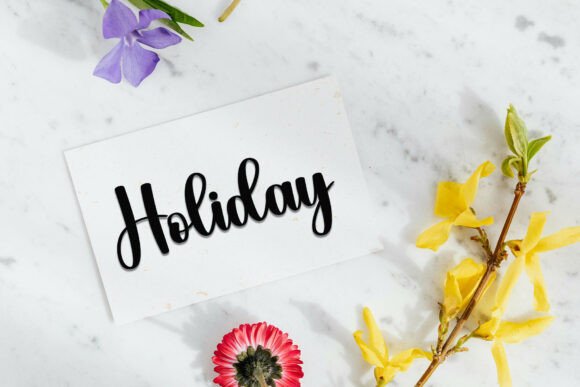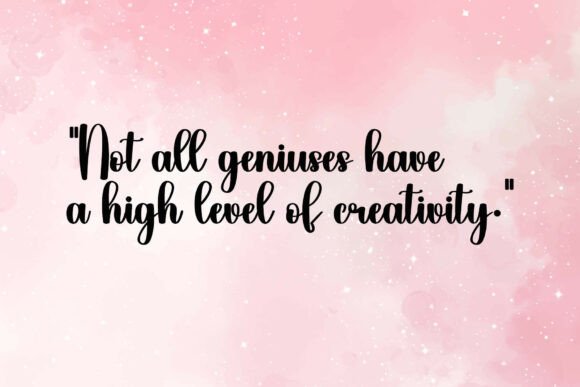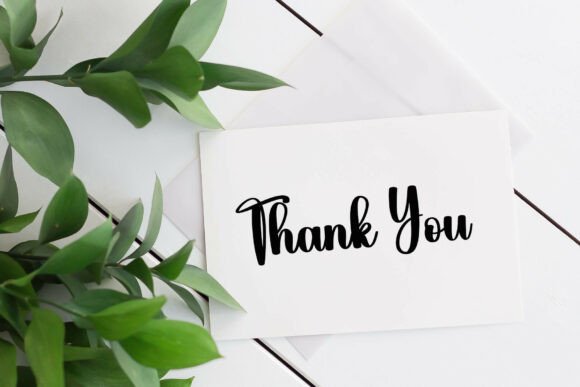
Coffee Font: Elevate Your Designs with a Touch of Elegance
In the world of typography, fonts play a crucial role in conveying the tone and personality of a design. For designers and crafters looking to add a touch of sophistication and elegance to their projects, the Coffee Font is an excellent choice. This trendy handwritten font boasts a contemporary atmosphere and impeccable form, inspired by timeless classic calligraphy.
The Inspiration Behind Coffee Font
Coffee Font draws its inspiration from traditional calligraphy, bringing a sense of nostalgia and classic charm to modern designs. The font’s creator aimed to capture the essence of elegant handwriting, perfecting the curves, lines, and strokes to create a truly unique and versatile typeface. The result is a font that exudes refinement and poise, making it suitable for a wide range of design applications.
Key Features of Coffee Font
- Trendy and Contemporary: Despite its classic inspiration, Coffee Font has a distinctly modern feel, making it perfect for designers looking to create fresh and stylish content.
- Handwritten Elegance: The font’s handwritten nature adds a personal touch to designs, conveying warmth and approachability.
- Impeccable Form: Each letterform has been carefully crafted to ensure clarity, legibility, and aesthetic appeal.
- Versatile: Coffee Font can be used across various design projects, from branding and advertising to packaging and digital media.
Use Cases for Coffee Font
Coffee Font’s versatility makes it an excellent choice for numerous design projects. Here are a few examples:
- Branding and Logos: Create a lasting impression with a sophisticated logo that incorporates Coffee Font, perfect for businesses in the luxury, fashion, or food and beverage industries.
- Wedding and Event Invitations: Add a touch of elegance to your wedding or event invitations, setting the tone for a refined and memorable celebration.
- Packaging Design: Elevate your product packaging with Coffee Font, making your brand stand out on store shelves and online.
- Digital Media: Use Coffee Font in your digital content, such as blog posts, social media graphics, or email newsletters, to add a professional and stylish flair.
Tips for Using Coffee Font Effectively
To get the most out of Coffee Font, consider the following tips:
- Pair with Neutral Backgrounds: Allow Coffee Font to take center stage by pairing it with neutral backgrounds that won’t compete for attention.
- Experiment with Colors: Try different color combinations to find the perfect match for your design, from rich blacks and whites to bold brights and pastels.
- Play with Sizes: Use Coffee Font in various sizes to create visual hierarchy and add depth to your designs.
Coffee Font is a beautiful, elegant, and versatile typeface that can elevate any design project. Its unique blend of classic inspiration and modern flair makes it an excellent choice for designers and crafters looking to add a touch of sophistication to their work. Whether you’re creating branding materials, invitations, packaging, or digital content, Coffee Font is sure to impress.